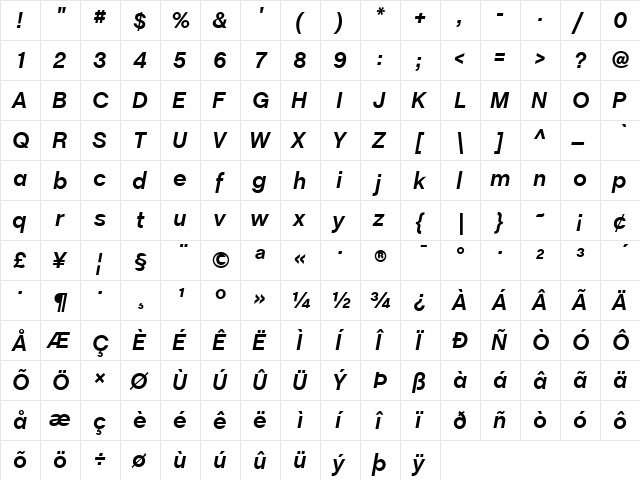
ChaletBookTT Bold Italic Font Preview
Design Context for ChaletBookTT Typeface
ChaletBookTT takes a measured approach to typography — its balanced proportions and neutral character make it a reliable workhorse for both digital and print work. Its italic angle brings a sense of urgency and motion to the letterforms. The heavy weight commands attention and anchors typographic hierarchies.
Pro Tip: Try ChaletBookTT for annotation and caption copy alongside an upright companion — the contrast in angle creates a dynamic but ordered typographic system.